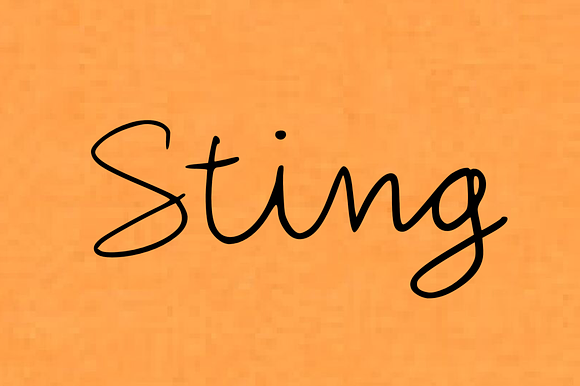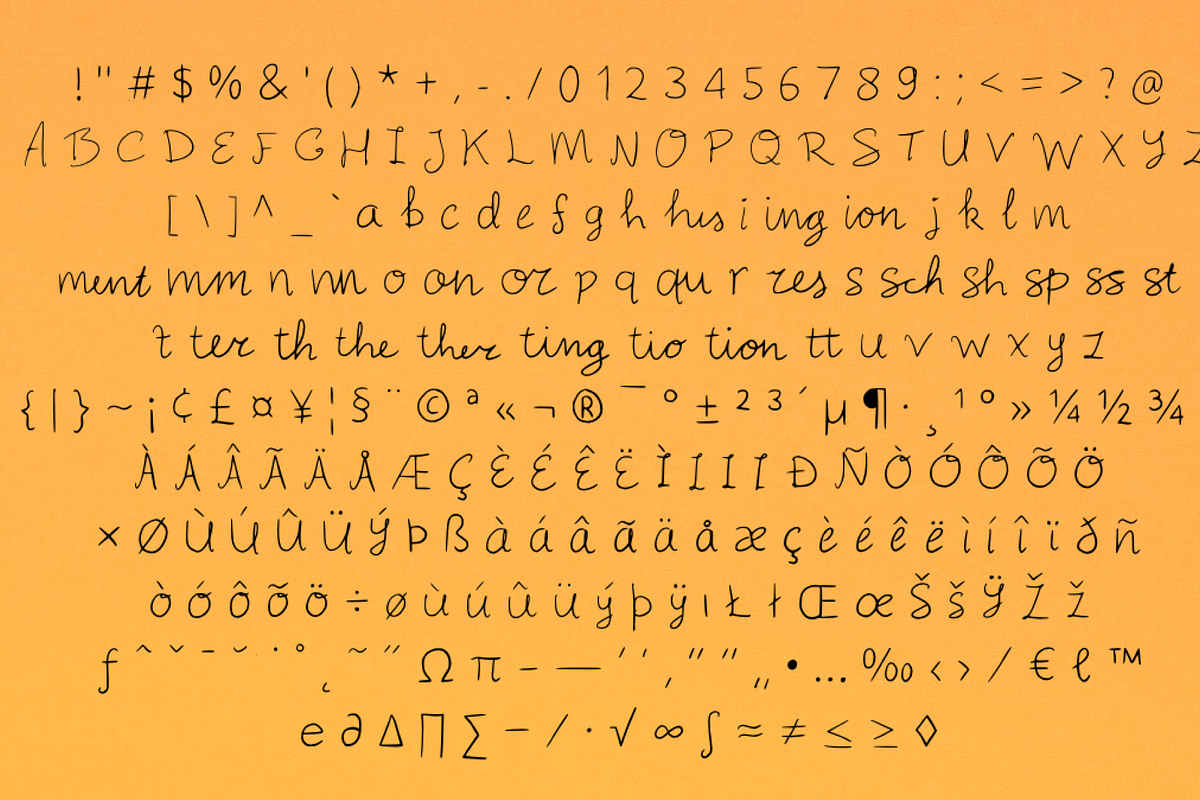
Sting - Handwritten Script Font
A handwritten script font containing upper and lowercase characters, ligatures, numerals and a large range of punctuation. International characters included!
Ideal for logos, handwritten quotes, product packaging, header, poster, merchandise, social media, greeting cards and many more.
Large range of Punctuation
- International characters included!
- Latin A-Z
- Latin a-z
- Large range of Punctuation